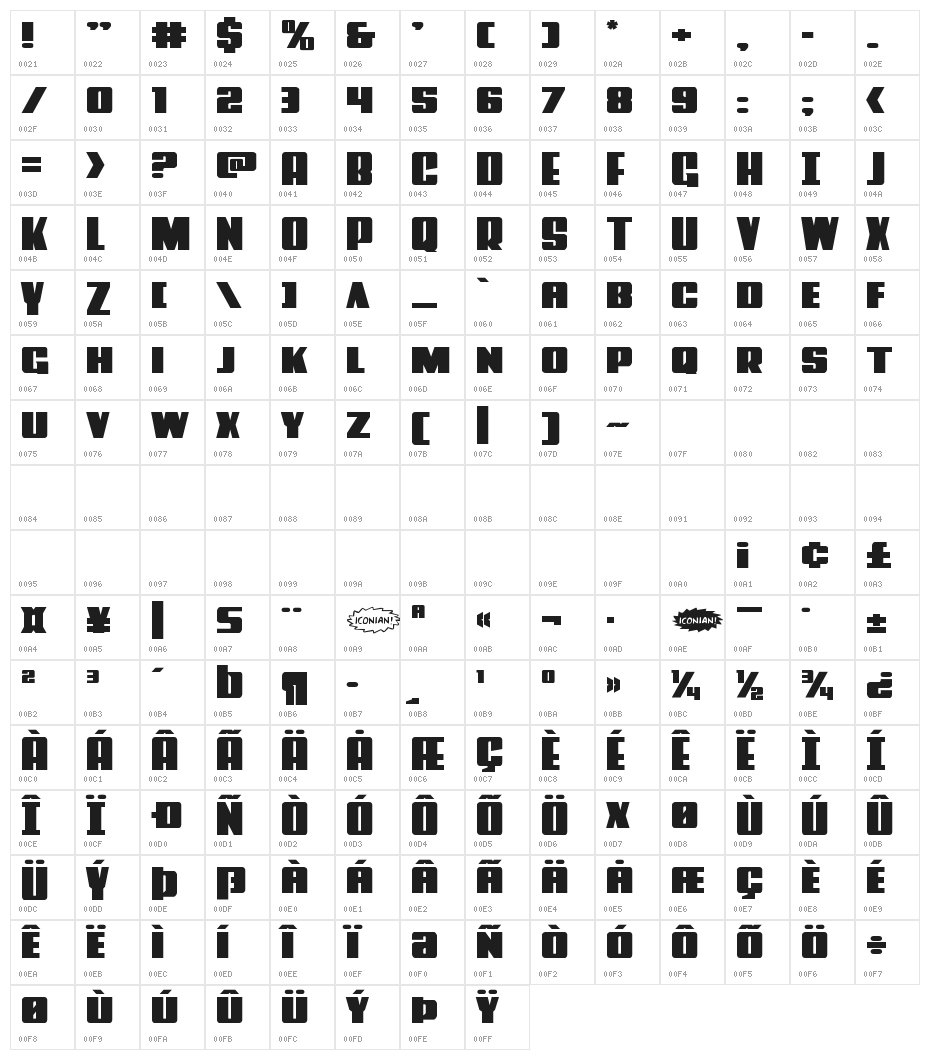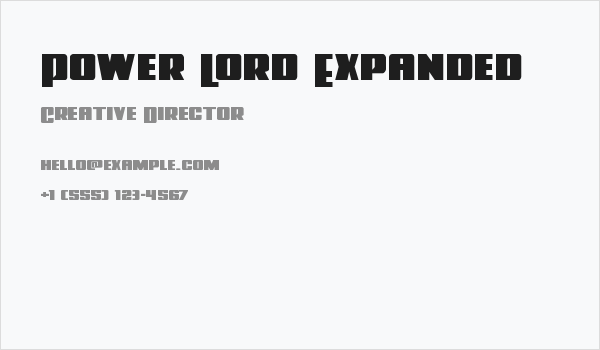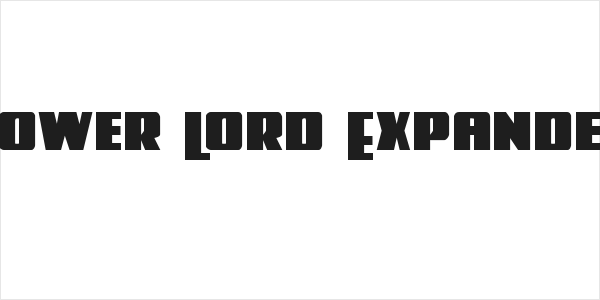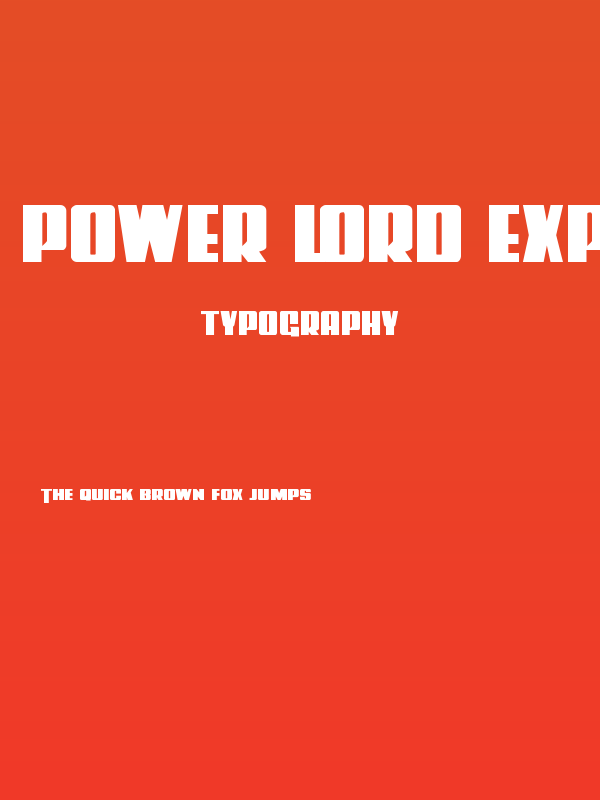
Power Lord Expanded Font
| Vorgeschlagene Projekte | This font is perfect for projects that require a strong visual impact, such as posters, banners, logos, and branding materials. Its boldness makes it suitable for sports-related designs, action-themed graphics, and any project that demands attention. |